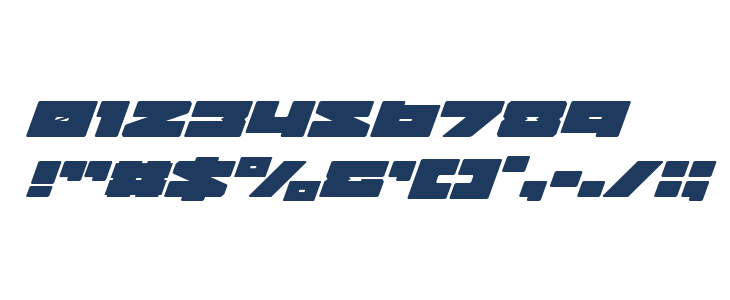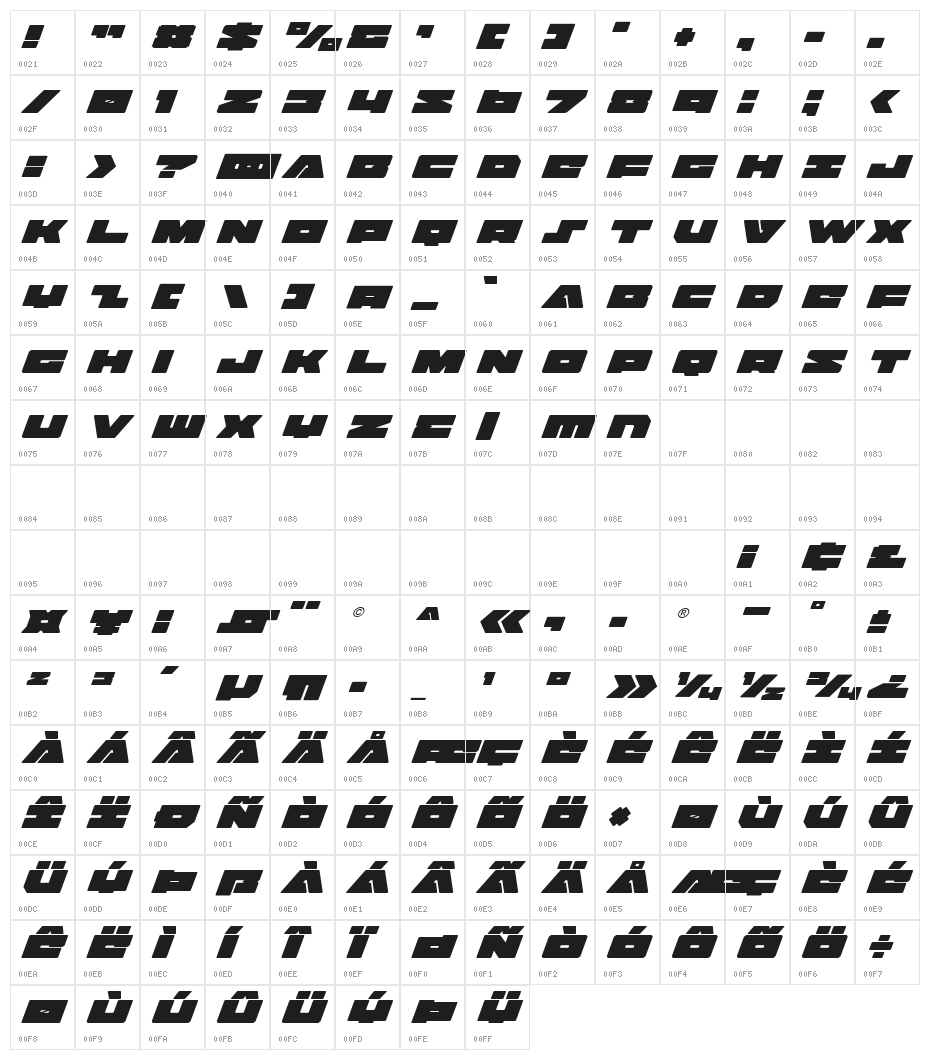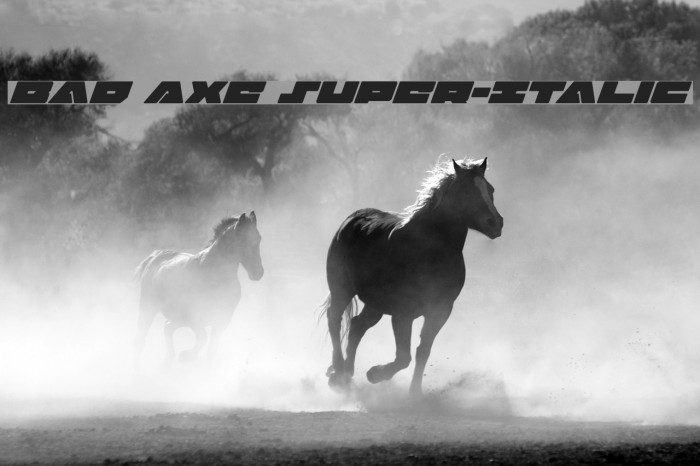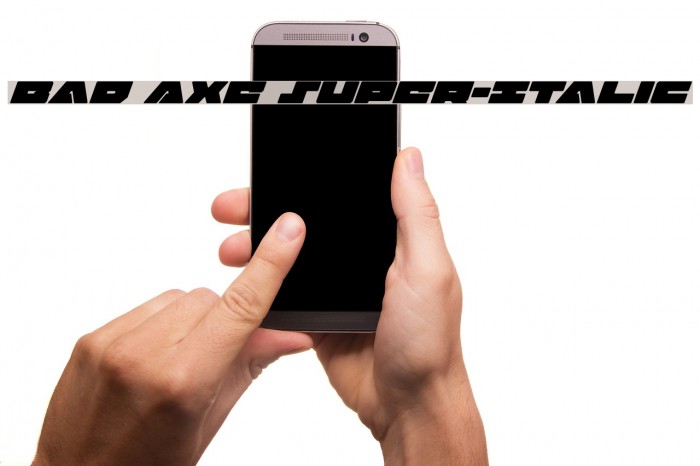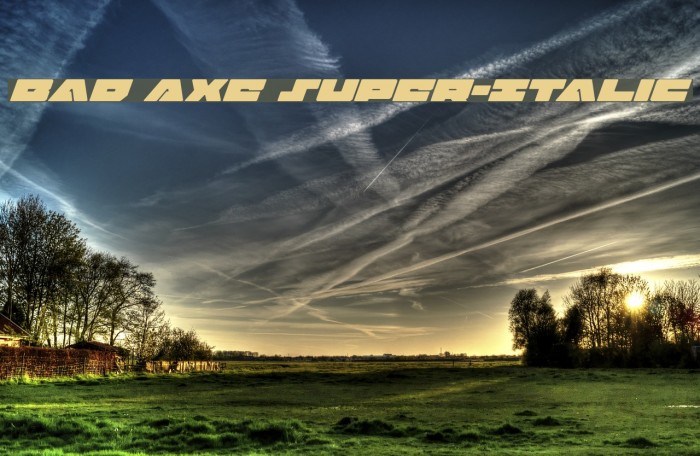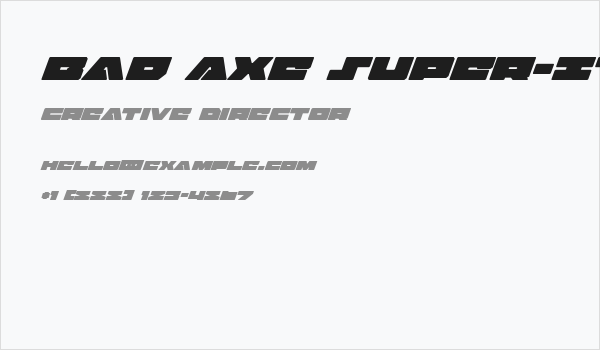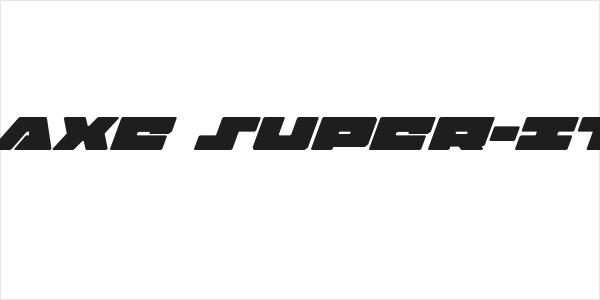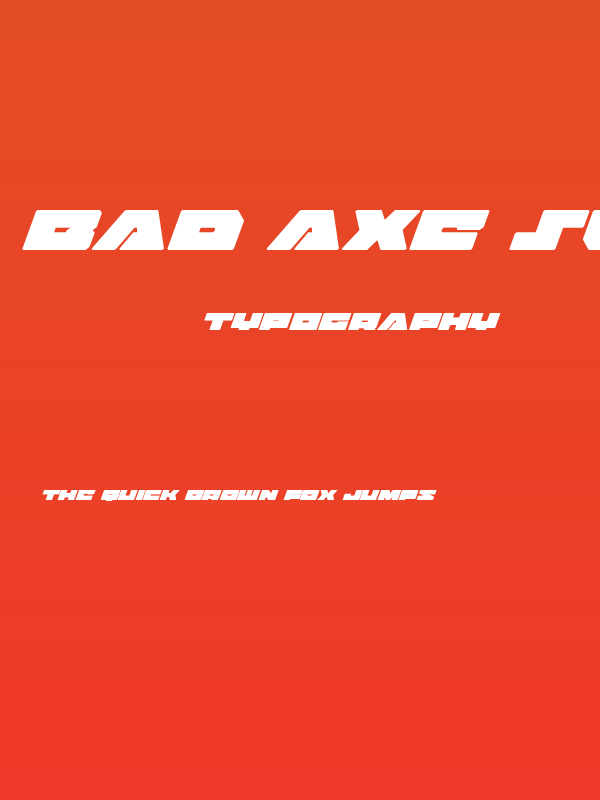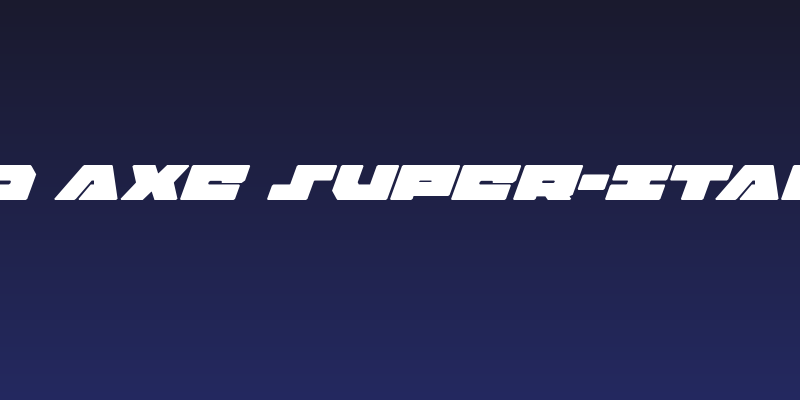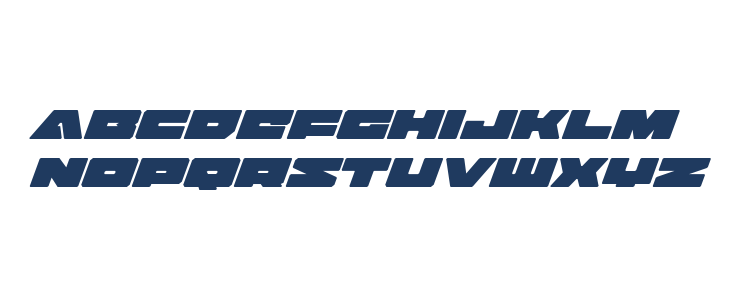
Bad Axe Super-Italic Font
Bad Axe Super-Italic Description
This font features a bold and dynamic design with a strong italic slant, giving it a sense of motion and energy. The characters are blocky and geometric, with sharp angles and a futuristic aesthetic. The uppercase and lowercase letters maintain a consistent style, emphasizing boldness and impact. Numbers and special characters are designed to match the overall theme, making the font suitable for attention-grabbing headlines and modern designs. The thick strokes and tight spacing contribute to its powerful presence.
Proposed ProjectsIdeal for sports branding, video game titles, sci-fi posters, and dynamic advertising campaigns.